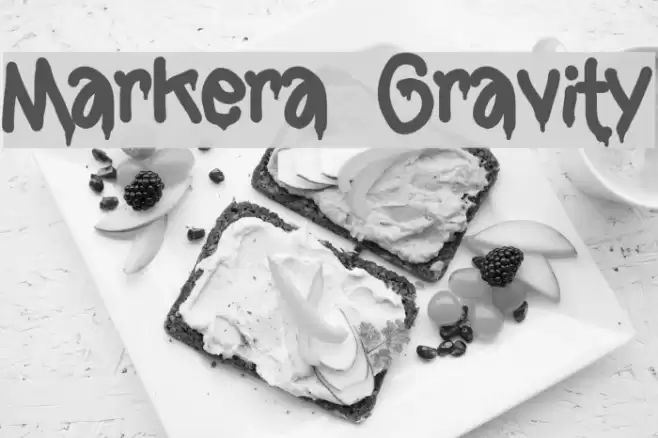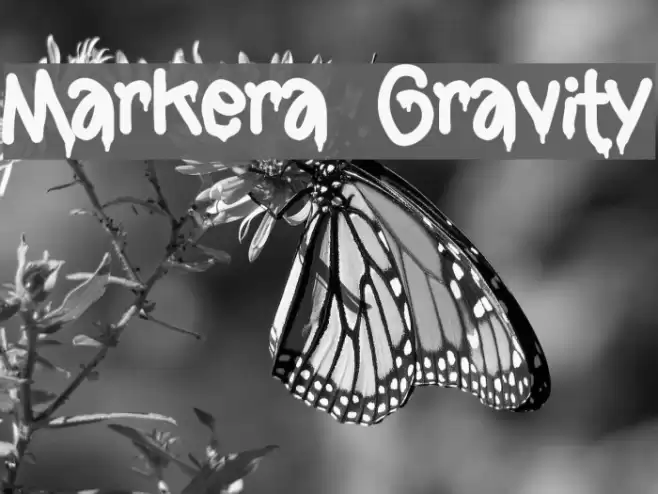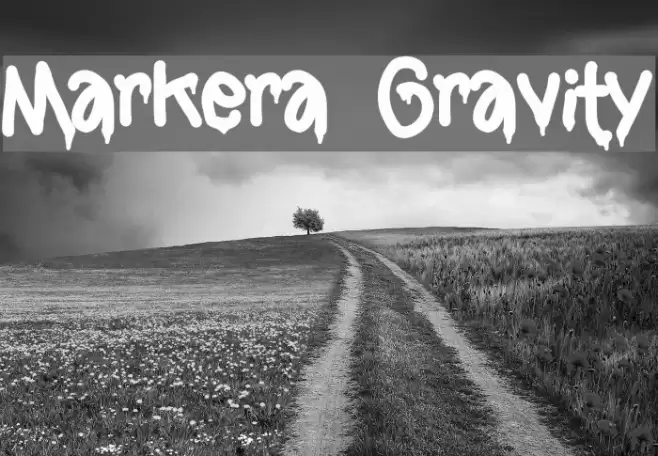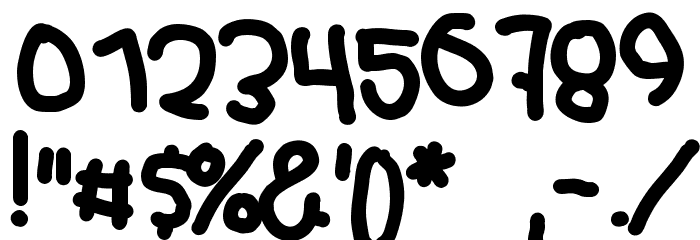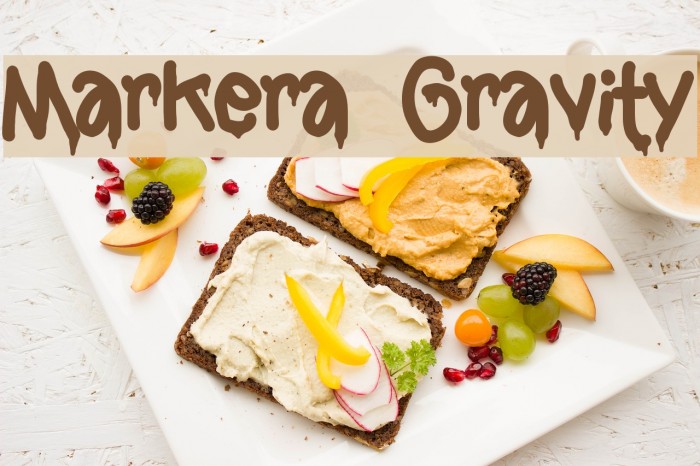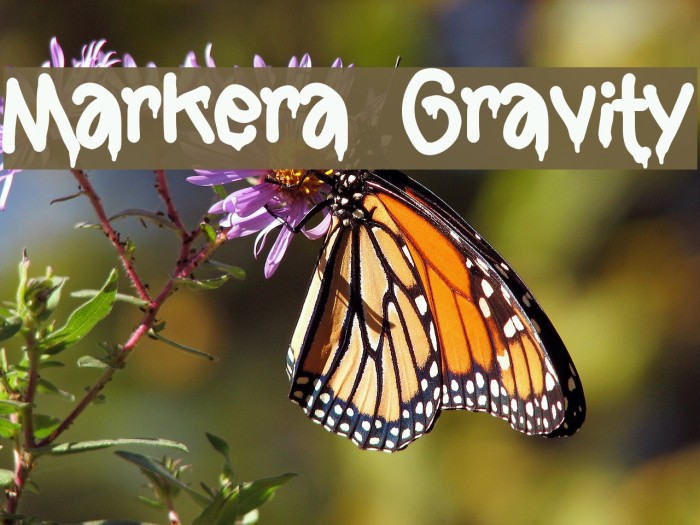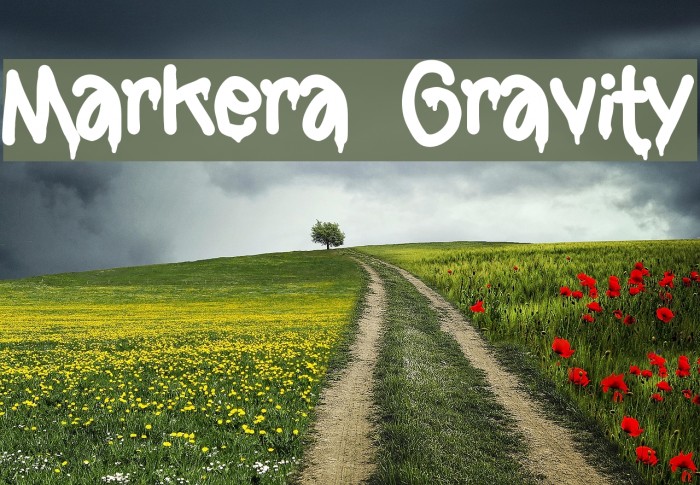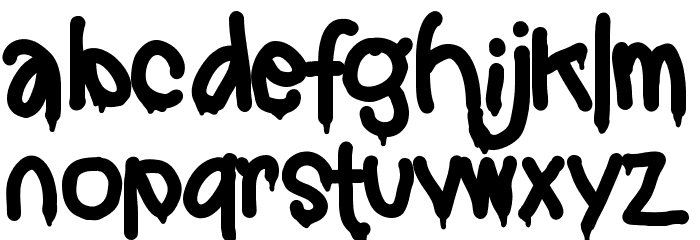
Markera Gravity Font
Markera Gravity Description
This font features a bold, graffiti-inspired style with a playful and energetic appearance. The characters have a hand-drawn, marker-like quality, with thick strokes and slightly irregular edges that give it a dynamic and urban feel. The uppercase and lowercase letters maintain a consistent flow, while the numerals and special characters complement the overall aesthetic. This font exudes a sense of creativity and spontaneity, making it ideal for projects that require a bold and expressive touch.
A bold, graffiti-inspired font with a playful, hand-drawn style from Uncategorized fonts.
- Proposed Projects: Ideal for street art designs, urban-themed posters, music album covers, and creative branding projects.
- Overall Style: Urban, Creative, Energetic